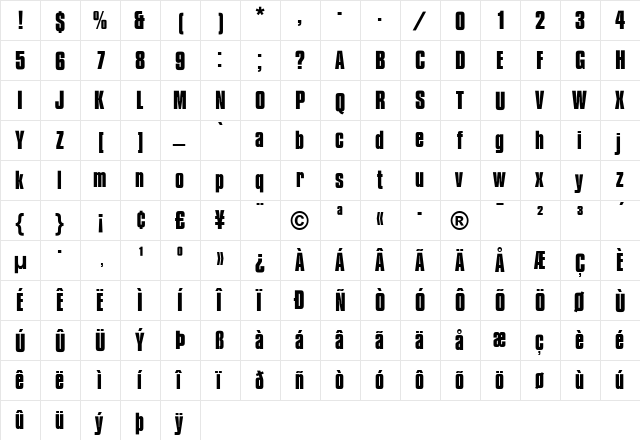
Compacta MT Bold
Design Context for Compacta MT Typeface
Compacta MT offers clean, dependable letterforms without strong stylistic allegiance, making it a practical choice for designers who need flexibility. Its bold stroke weight gives it real presence on the page. The condensed width makes it efficient for tight spaces without sacrificing legibility.
Pro Tip: Pair Compacta MT with a font of contrasting weight or personality to build a more expressive typographic hierarchy.